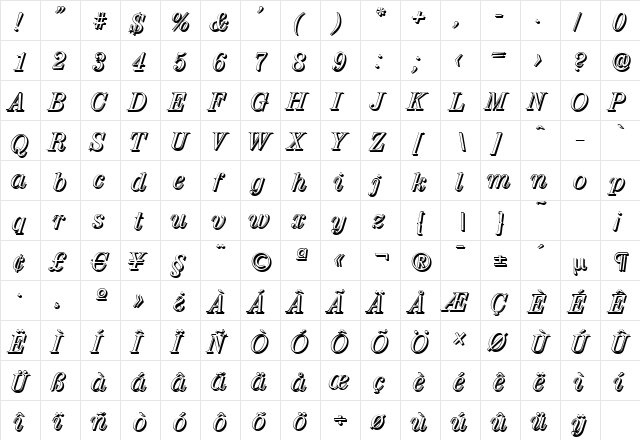
ValenciaShadow Italic
Design Context for ValenciaShadow Typeface
ValenciaShadow brings ornamental detail and strong personality to headlines and identities, where visual impact matters more than quiet functionality. The slanted form adds forward momentum and visual energy.
Font Pairing: Pair with a clean neutral sans-serif for body copy to let ValenciaShadow's character lead without overwhelming the composition.
Pro Tip: Use ValenciaShadow exclusively at display sizes — it was designed to be seen, not read at length. Let a neutral companion handle body copy.